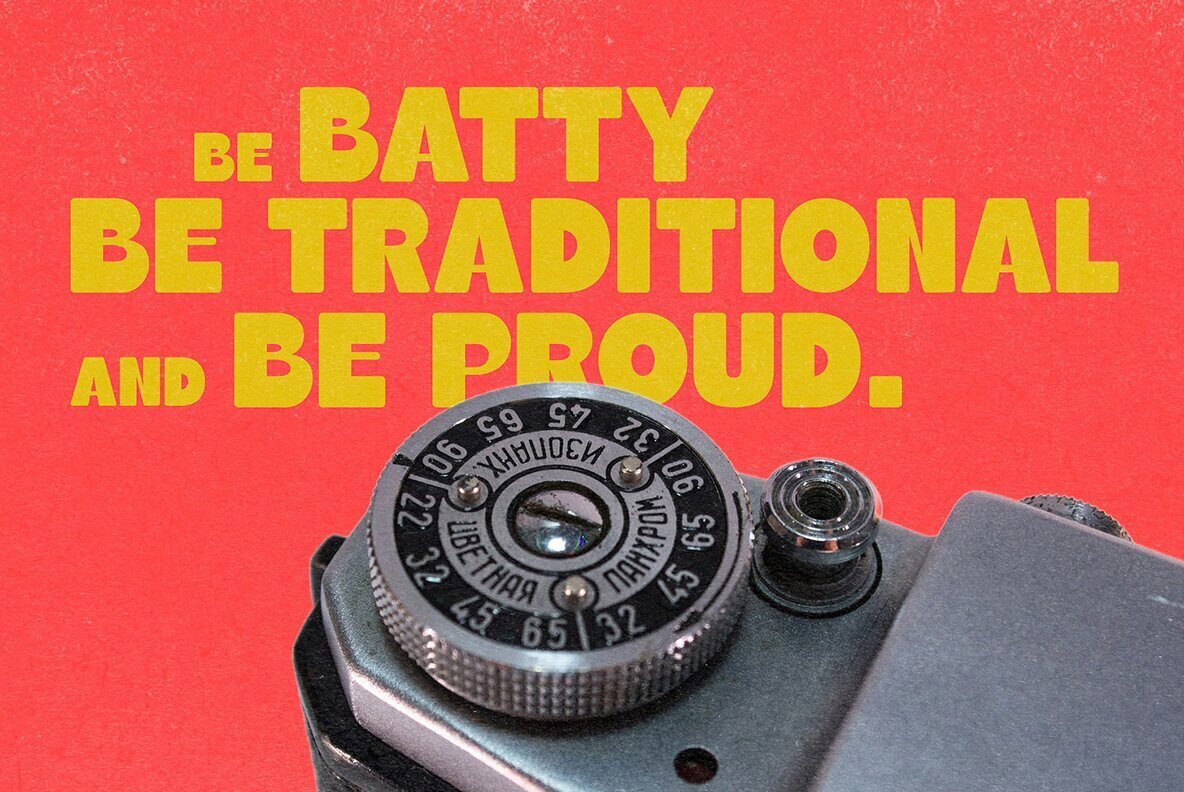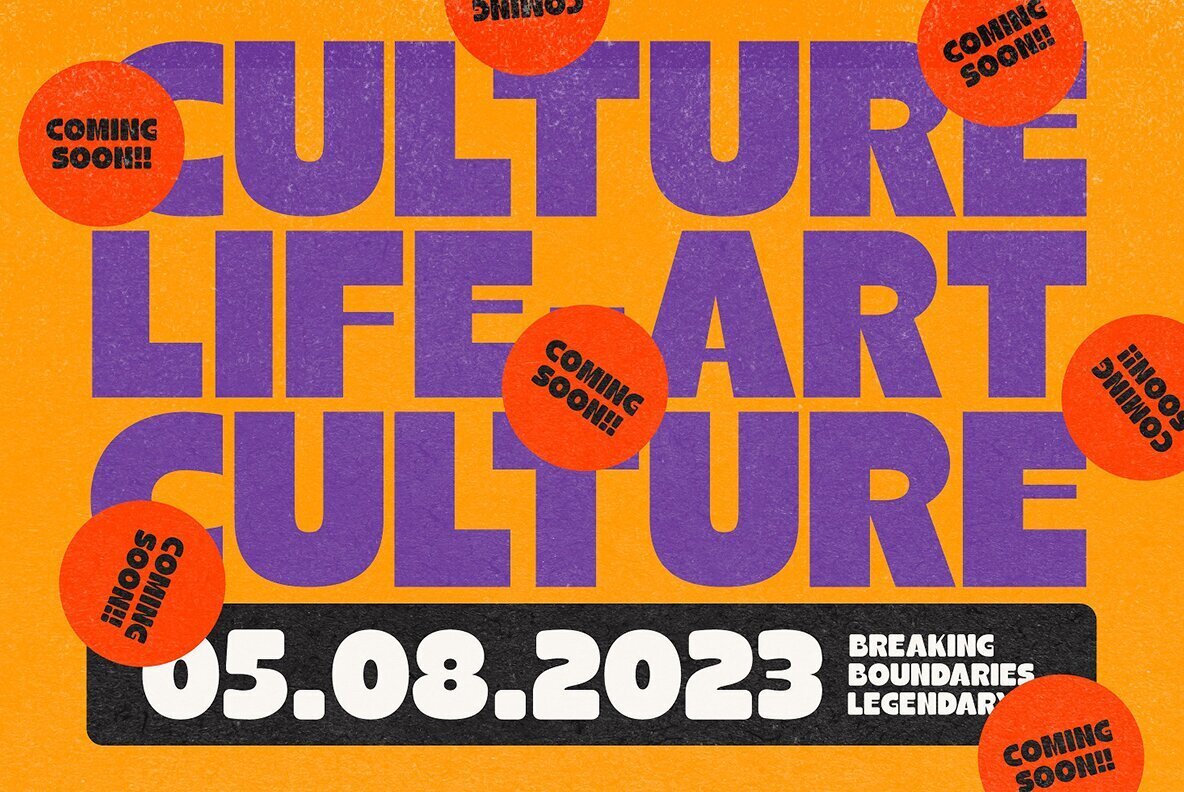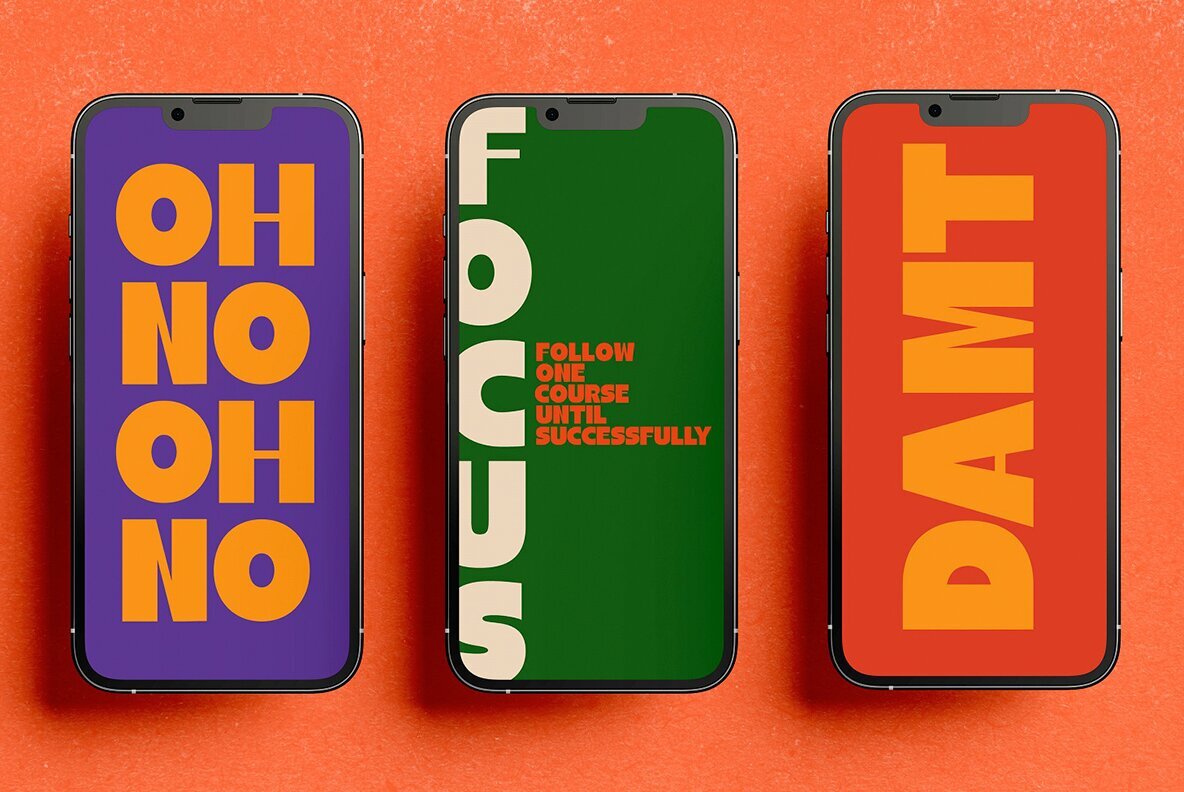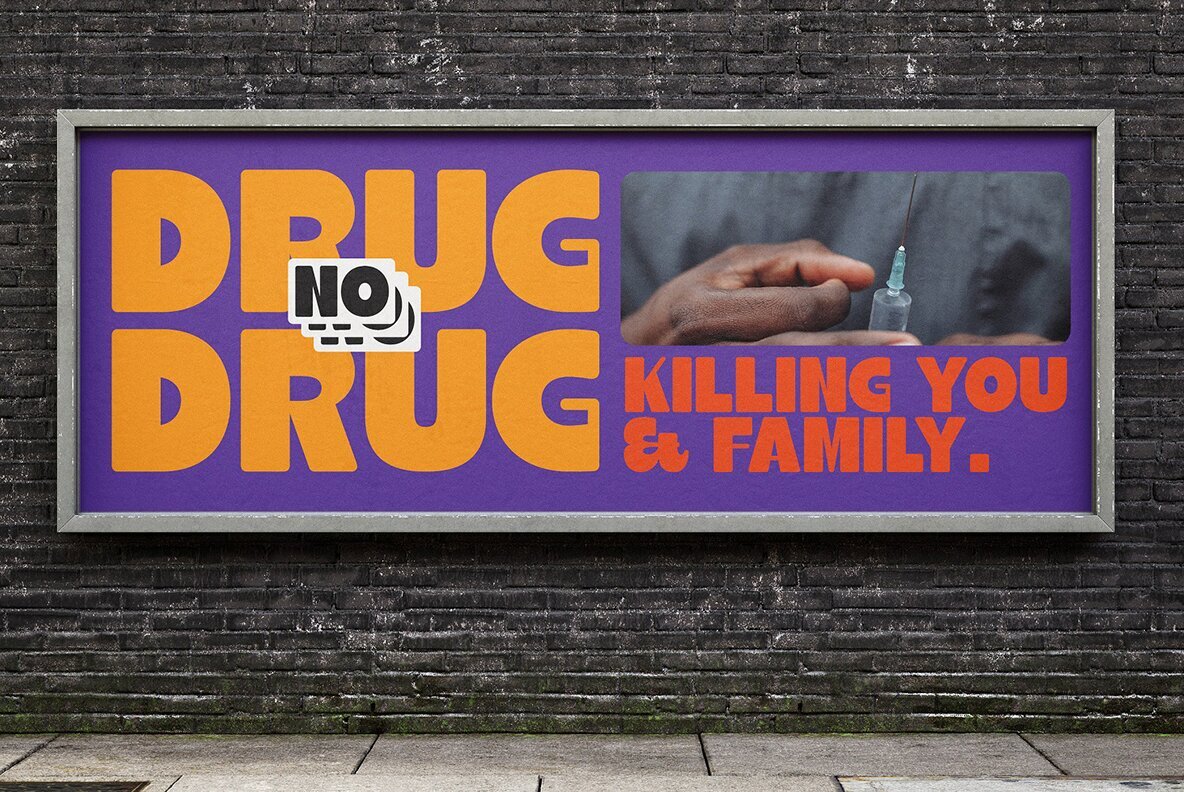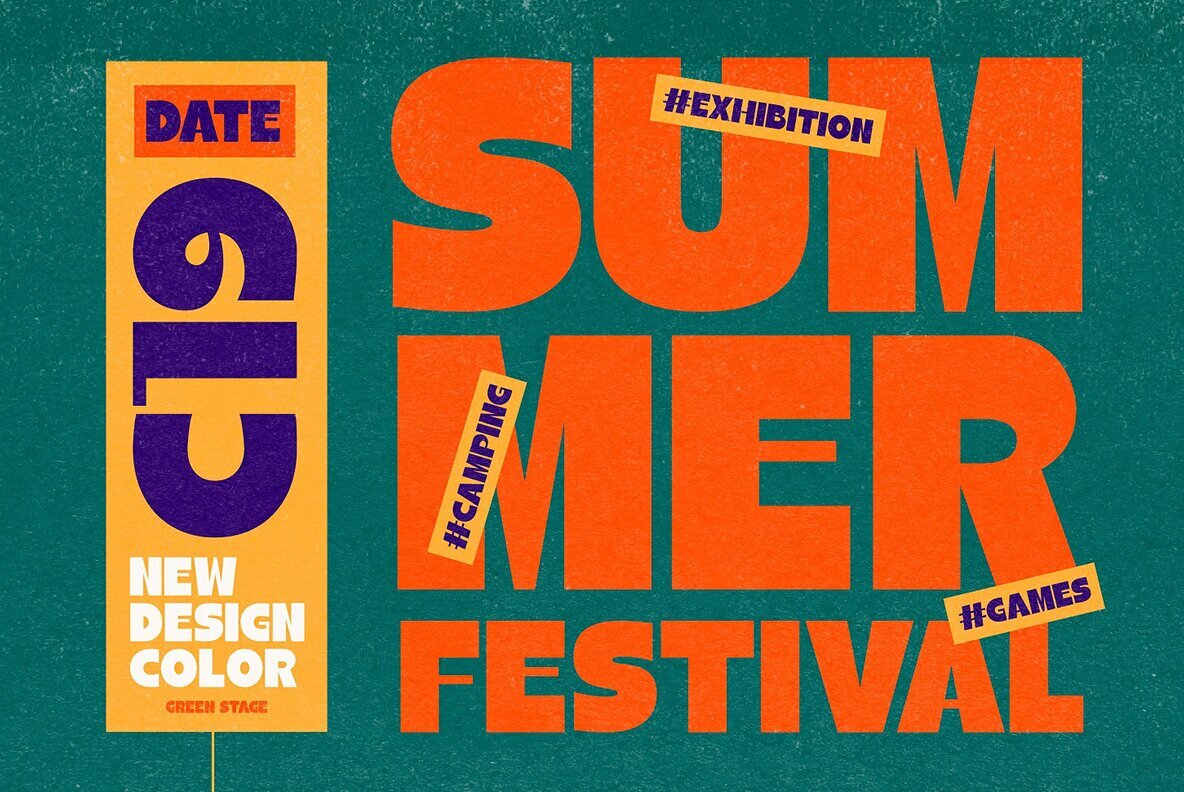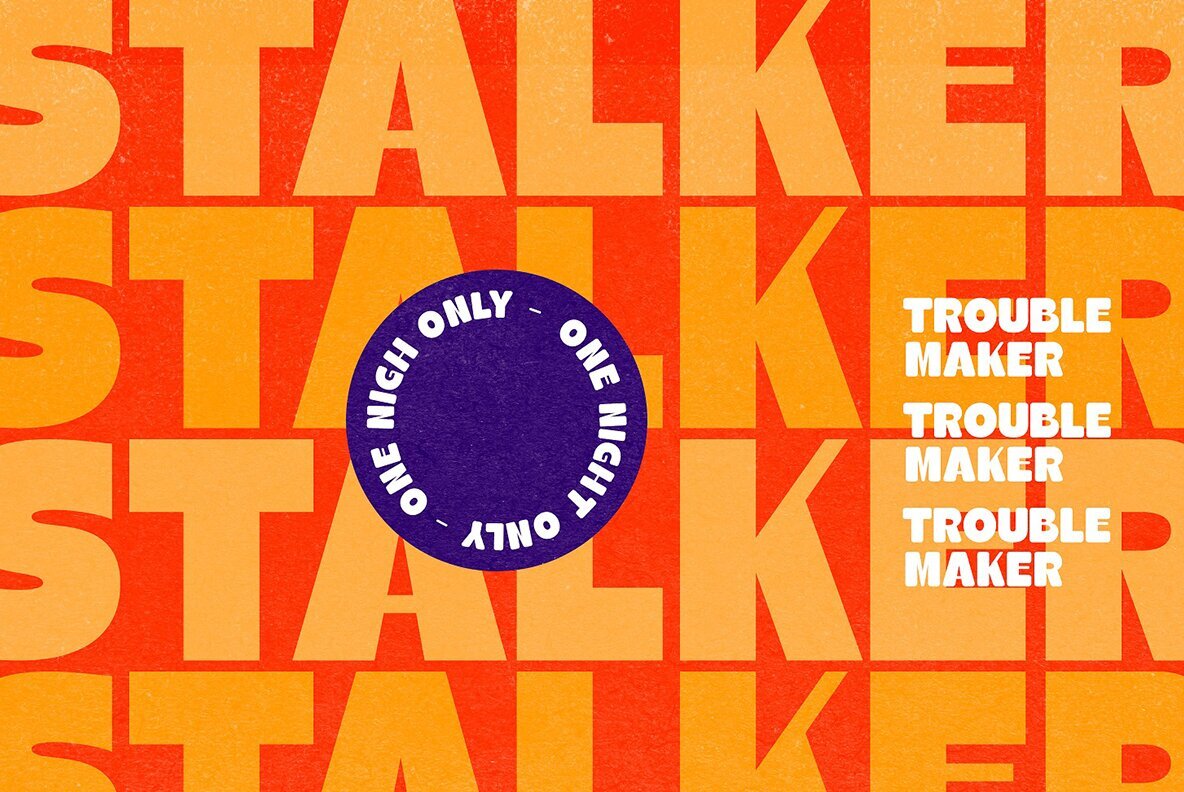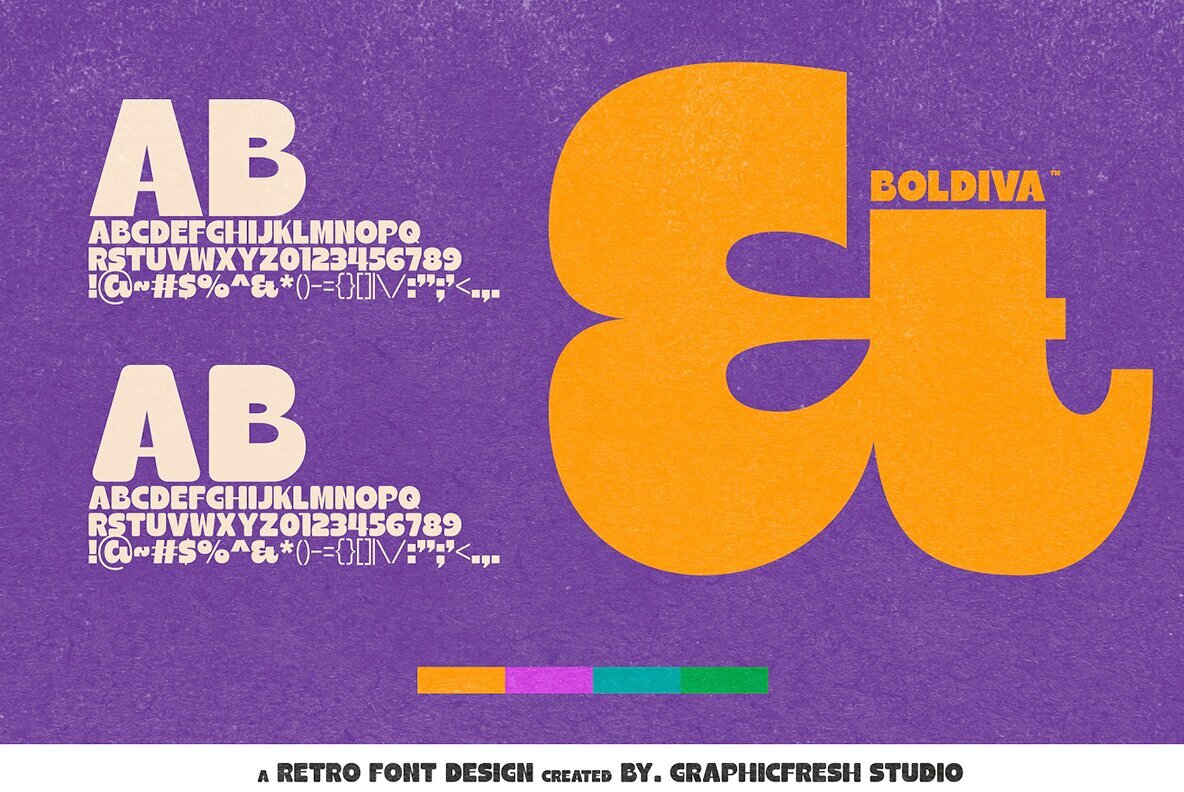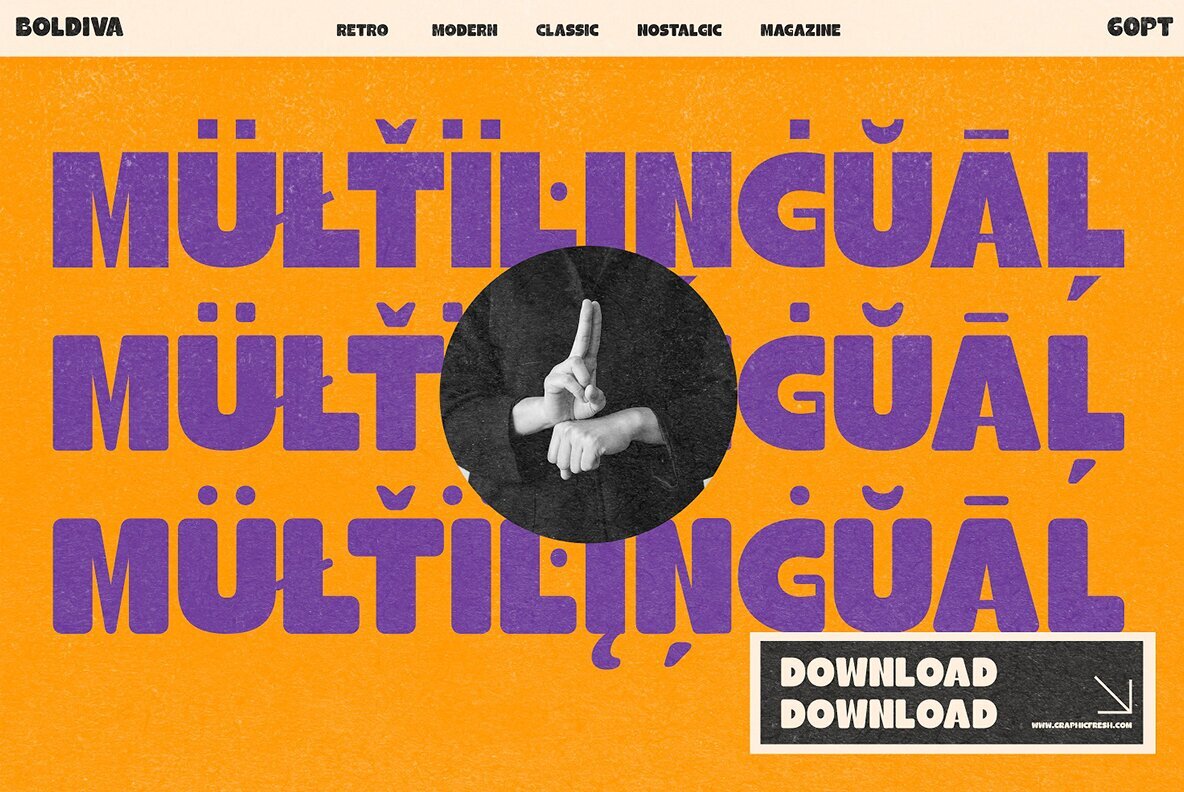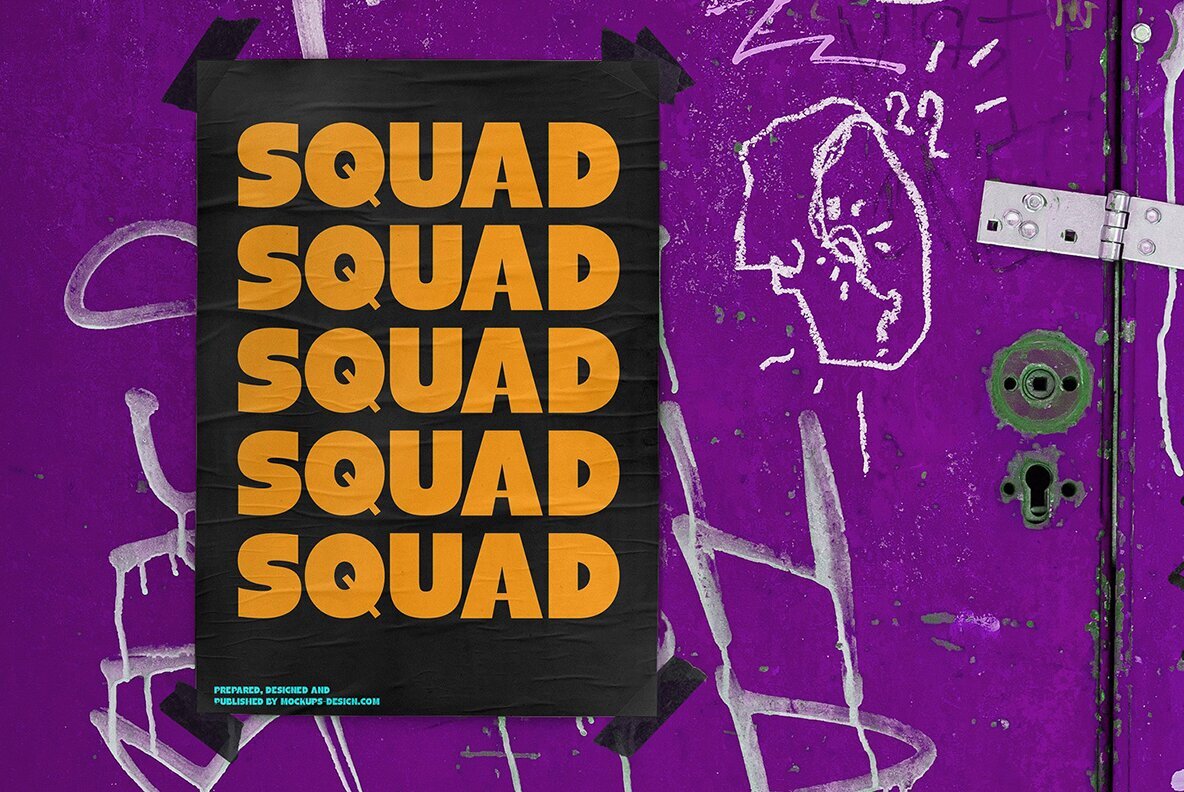
Boldiva Font
Boldiva Regular
Boldiva Rounded 30 Regular
Boldiva Rounded 60 Regular
Add a bold, retro charm to your projects with Boldiva by Graphicfresh. This collection brings the vibrant creativity of the 70s, 80s, and 90s into your logos, posters, and various design projects, offering both classic appeal and a fresh twist on retro design. Whether adding vintage flair to a contemporary design or creating a 90s throwback look, Boldiva provides the perfect fonts for any creative endeavor. Explore our collection and discover how easily you can craft stunning, one-of-a-kind designs. Boldiva is suitable for both seasoned designers and those just starting their creative journey, offering a touch of old-school charm to every project.Boldiva: Retro Charm for Creative Designs
Highlighting Retro Aesthetics
Diverse Style Options